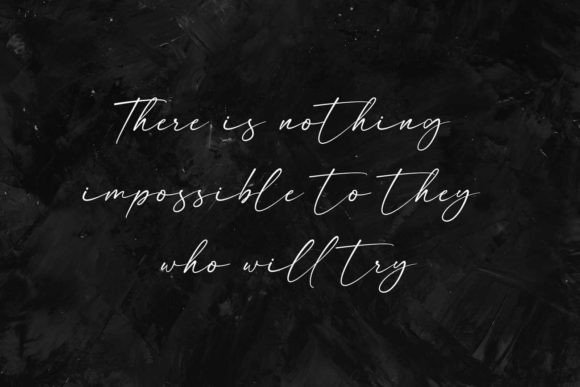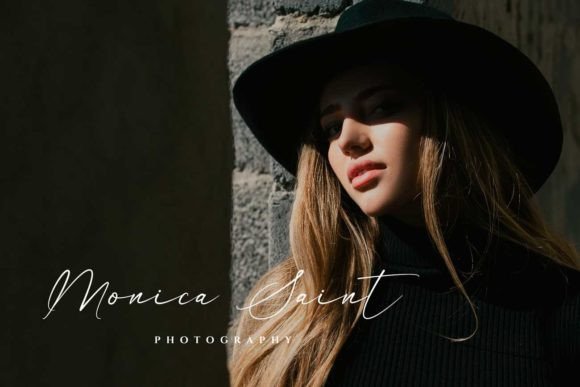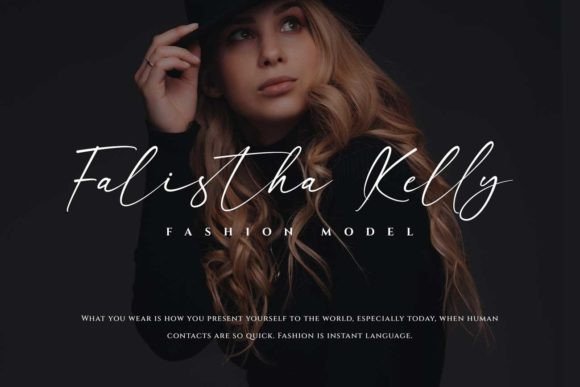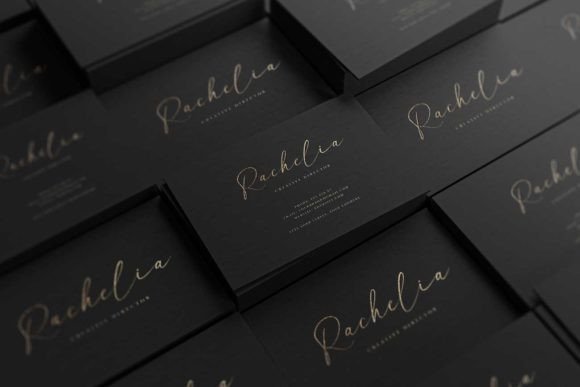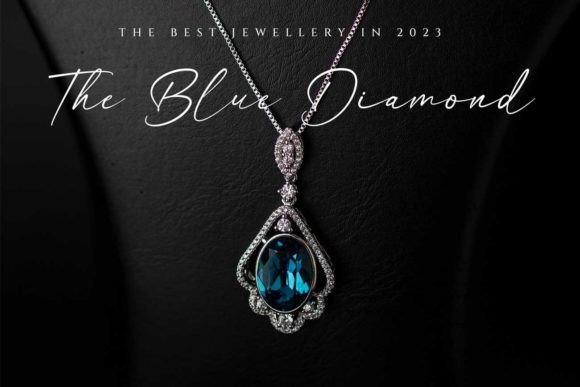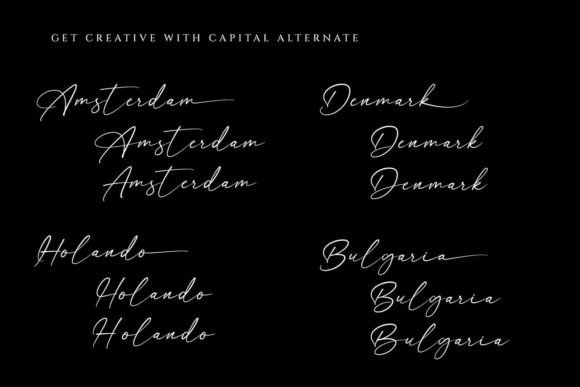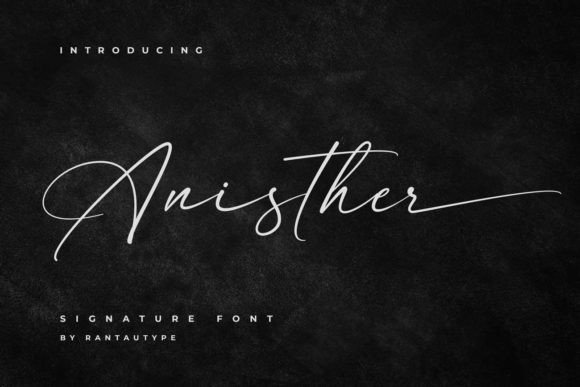
Discover the Versatility of Anisther Font: Elevate Your Design Projects
Are you a designer or crafter looking for a font that can elevate your creative projects? Look no further than Anisther Font. This versatile and stylish font is perfect for a wide range of design applications, from watermarks on photography to signature logo designs, quotes, album covers, magazines, business cards, and many more. In this article, we’ll explore the features and benefits of Anisther Font, and show you how it can take your design projects to the next level.
What is Anisther Font?
Anisther Font is a modern and elegant font that is designed to be highly versatile and adaptable. Its clean lines, precise curves, and balanced proportions make it perfect for a wide range of design applications. Whether you’re creating a logo, a watermark, or a typographic design, Anisther Font is a great choice.
Key Features of Anisther Font
• Unique and Elegant Design: Anisther Font features a unique and elegant design that sets it apart from other fonts. Its clean lines and precise curves make it perfect for creating sophisticated and professional-looking designs.
• Highly Versatile: Anisther Font is highly versatile and can be used for a wide range of design applications, from watermarks on photography to signature logo designs, quotes, album covers, magazines, business cards, and many more.
• Easy to Read: Anisther Font is easy to read, even at small sizes, making it perfect for designs that require a lot of text, such as magazines and business cards.
• Scalable: Anisther Font is highly scalable, which means it can be used at any size without losing its quality.
Why Choose Anisther Font?
So, why choose Anisther Font for your design projects? Here are just a few reasons:
• Stand Out from the Crowd: Anisther Font is a unique and distinctive font that will help your designs stand out from the crowd.
• Professional-Looking Designs: Anisther Font is perfect for creating professional-looking designs that are sophisticated and elegant.
• Time-Saving: Anisther Font is easy to use and can save you time and effort when working on design projects.
How to Use Anisther Font in Your Design Projects
Anisther Font can be used in a wide range of design projects, including:
• Watermarks on Photography: Add a professional touch to your photography with Anisther Font watermarks.
• Signature Logo Designs: Create a unique and memorable logo for your business or brand with Anisther Font.
• Quotes and Typography Designs: Use Anisther Font to create beautiful and inspiring quotes and typography designs.
• Album Covers: Add a touch of elegance and sophistication to your album covers with Anisther Font.
• Magazines and Business Cards: Use Anisther Font to create professional-looking magazines and business cards.
In conclusion, Anisther Font is a versatile and stylish font that is perfect for a wide range of design applications. Its unique and elegant design, highly versatile, easy to read, and scalable features make it a great choice for designers and crafters. Whether you’re creating a logo, a watermark, or a typographic design, Anisther Font is a great choice. So why wait? Download Anisther Font today and take your design projects to the next level!